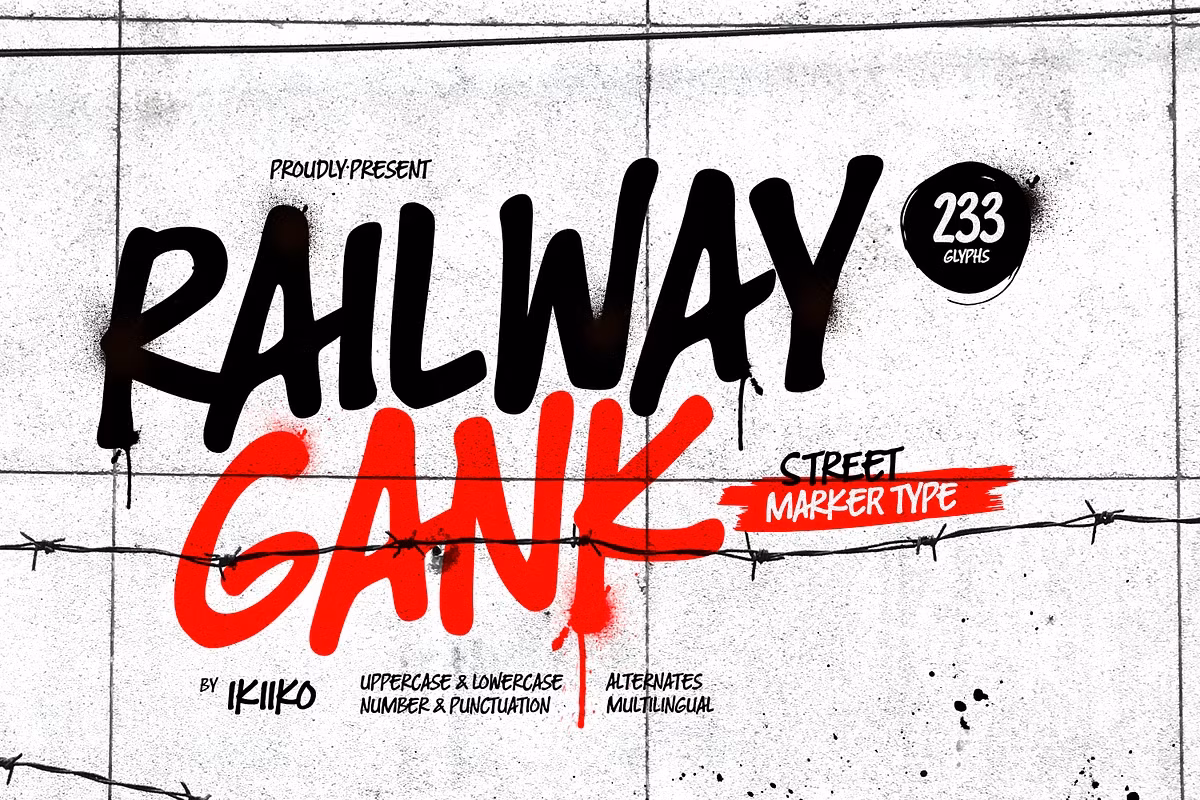
Railway Gank - Street Marker Type Free Download
Railway Gank Font Free Download is a bold, urban-style street marker typeface inspired by graffiti, signage, and underground art culture. With its raw brush strokes and edgy aesthetic, Railway Gank is perfect for streetwear branding, music artwork, skateboard graphics, posters, and any project that needs an unapologetically rebellious feel.
This typeface captures the look and feel of hand-painted street tags, giving your designs authenticity and attitude. It features all caps lettering, rough textures, numerals, punctuation, and dynamic alternates—making it ideal for impactful titles and expressive compositions.
Whether you're designing an album cover, a bold statement tee, or an urban-themed poster, Railway Gank Font Free Download brings street-level energy to your typography. Try it out for personal or concept work, and be sure to purchase the appropriate license for any commercial use. Let your designs speak loud and bold with this gritty street marker typeface.